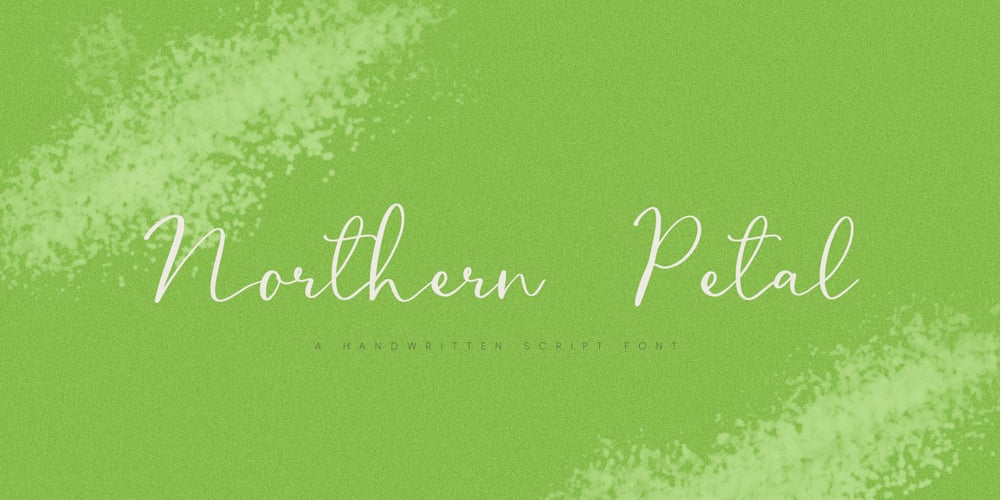
Northern Petal Font Family was designed by Tanya Amos and published by Tanincreate. Northern Petal contains 1 styles and family package options. Northern Petal is a casual script font with a touch of naturally connected handwritten feel. It is perfect for eye-catching branding projects, text overlay to any background, social media, wedding invitations, greeting cards and more.